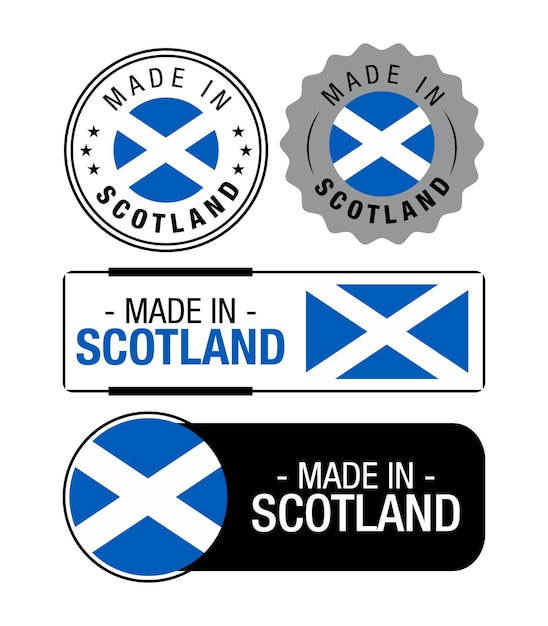
simple made in scotland 3d button sign. text around circle with scottish flag. decent and casual font version.
Simple made in scotland 3d button sign. text around circle with scottish flag. decent and casual font version.